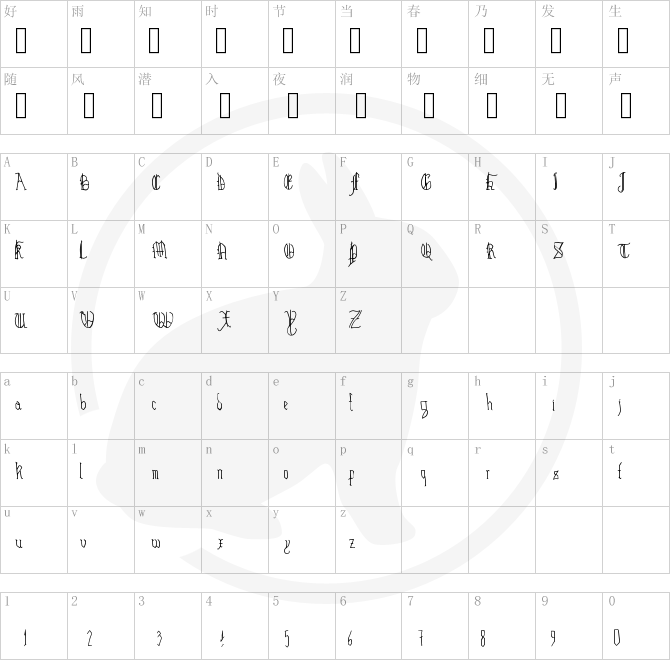
- Font Name:Hairline Quadrata
Hairline-Quadrata.ttf is a very beautiful artistic font, Hairline-Quadrata.ttf is widely used in the design and printing of various books and pictures,Hairline-Quadrata.ttf has a strong visual impact,Hairline-Quadrata.ttf is a commonly used font in newspapers, magazines and books, and is used in posters, e-commerce Poster design, store design, logo design, font design and other fields.Hairline-Quadrata.